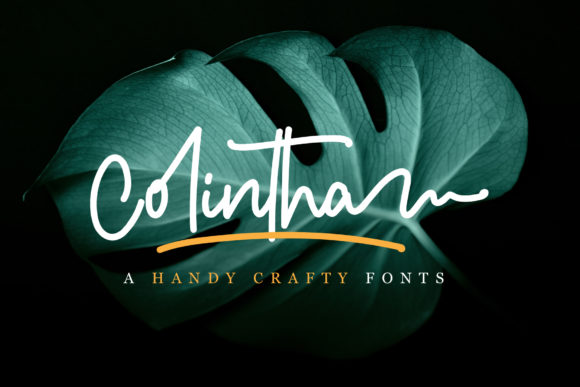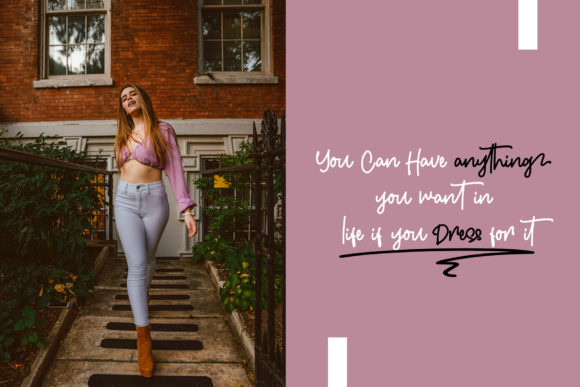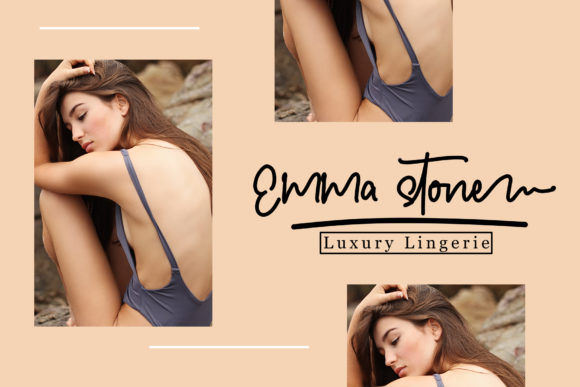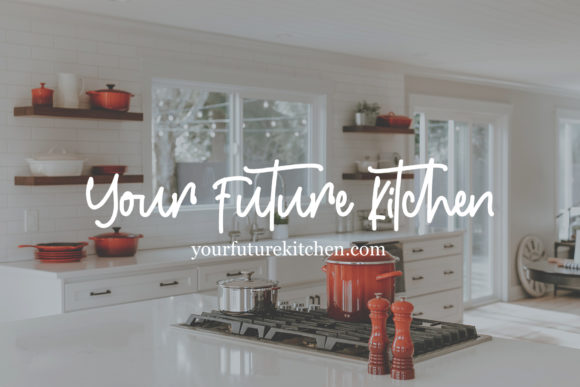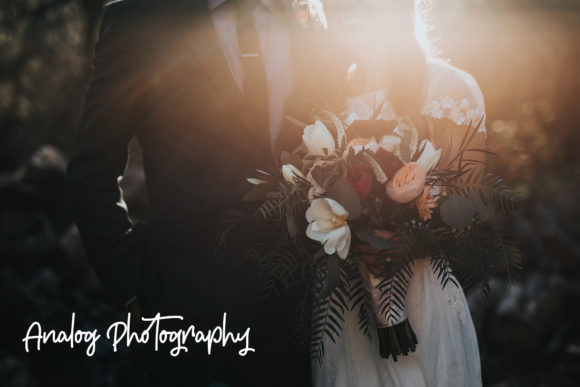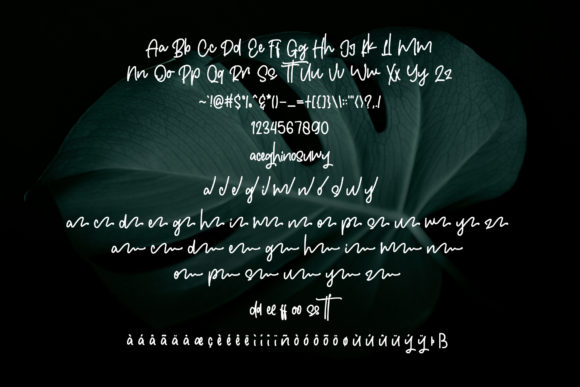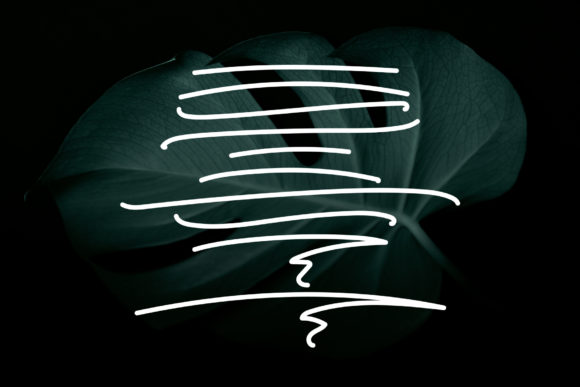
HomeScript FontsColintha Font Script Fonts Colintha Font FacebookXPinterestWhatsApp Colintha Font Poster 2 Colintha Font Poster 3 Colintha Font Poster 4 Colintha Font Poster 5 Colintha Font Poster 6 Colintha Font Poster 7 About Colintha Font Colintha is a sweet and cool handwritten font with a unique style. Get inspired by its contemporary look. DOWNLOAD ON CREATIVE FABRICAThis font is sold and delivered by Creative Fabrica. Font Canyon may earn a commission if you buy through this link. People also explored Yellowthings Font Nela Neta Font Jandu Signature Font Garvey Font Hello Mom Font Space Odyssey Font Allain Font Modern Deluxe Font Designer Font 447 0 TagsColintha Font Previous articlePassquina FontNext articleTom Brother Font LEAVE A REPLY Cancel reply Comment: Please enter your comment! Name:* Please enter your name here Email:* You have entered an incorrect email address! Please enter your email address here Website: Save my name, email, and website in this browser for the next time I comment. Personal Use Free Adelia Font Personal Use Free Read more about this font Super Caramel Font Personal Use Free Read more about this font Strings Personal Use Free Read more about this font Rina Personal Use Free Read more about this font BLOG Top 7 Google Fonts Alternatives for Faster and Privacy-Friendly Web Design (2025) Top 7 Google Fonts Alternatives for Faster and Privacy-Friendly Web Design (2025) When it comes to web typography, Google Fonts has long been the go-to... Free vs Paid Fonts: Why Investing in Premium Fonts Is Worth It Free Fonts Risk: Why Free Fonts Can Be Dangerous for Designers Best Fonts for T-Shirt Design – Top 2025 Picks